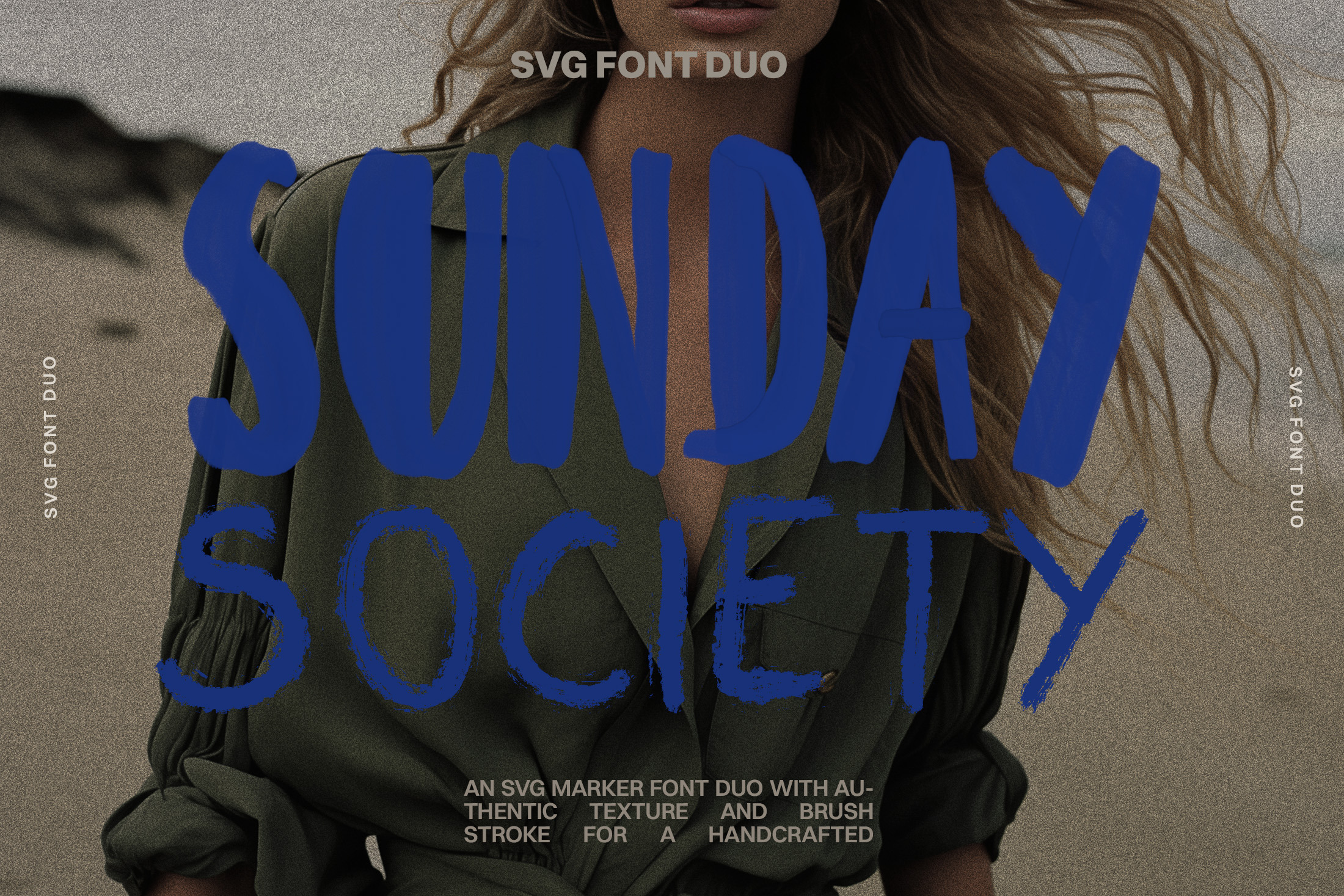
SVG Marker & Brush Font Duo
Highlight your website, branding or social media with a fresh font duo that instantly adds that special something. An authentic, handwritten touch paired with contemporary editorial vibes for an extra chic and eye-catching effect.
This marker brush font duo comes as a color font with it's authentic acrylic brush texture and rough marker style. Of course, there's a vector version added to the mix so that you can use the font for all kinds of purposes! Add the menu illustrations to the mix and you're sure to achieve that on-trend look your customers are looking for.